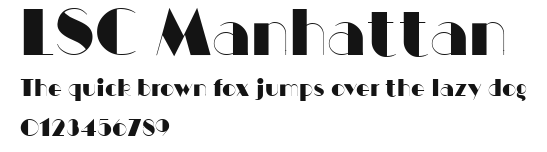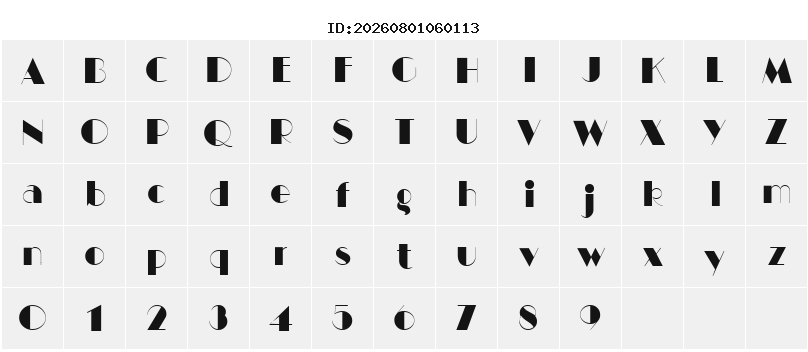
• Font Name: LSC Manhattan
• Full Font Name: LSC Manhattan Regular
About LSC Manhattan.ttf
LSC Manhattan.ttf is a modern, elegant sans-serif font designed for ultimate readability and visual harmony. Perfect for branding, headlines, web design, and print materials.